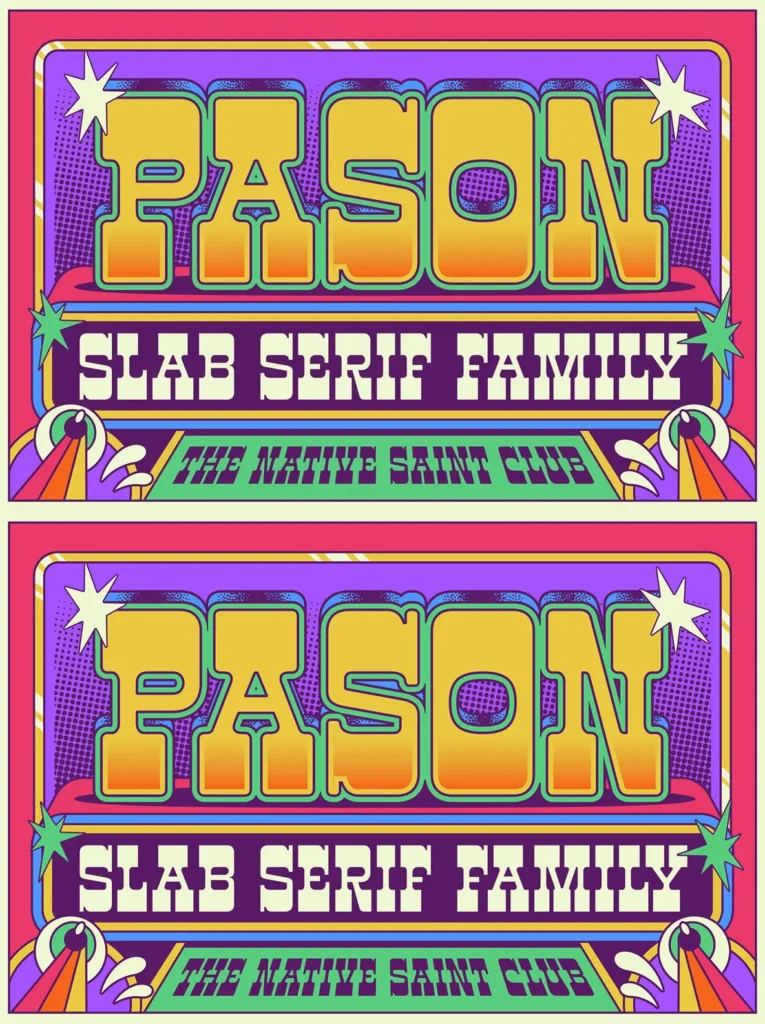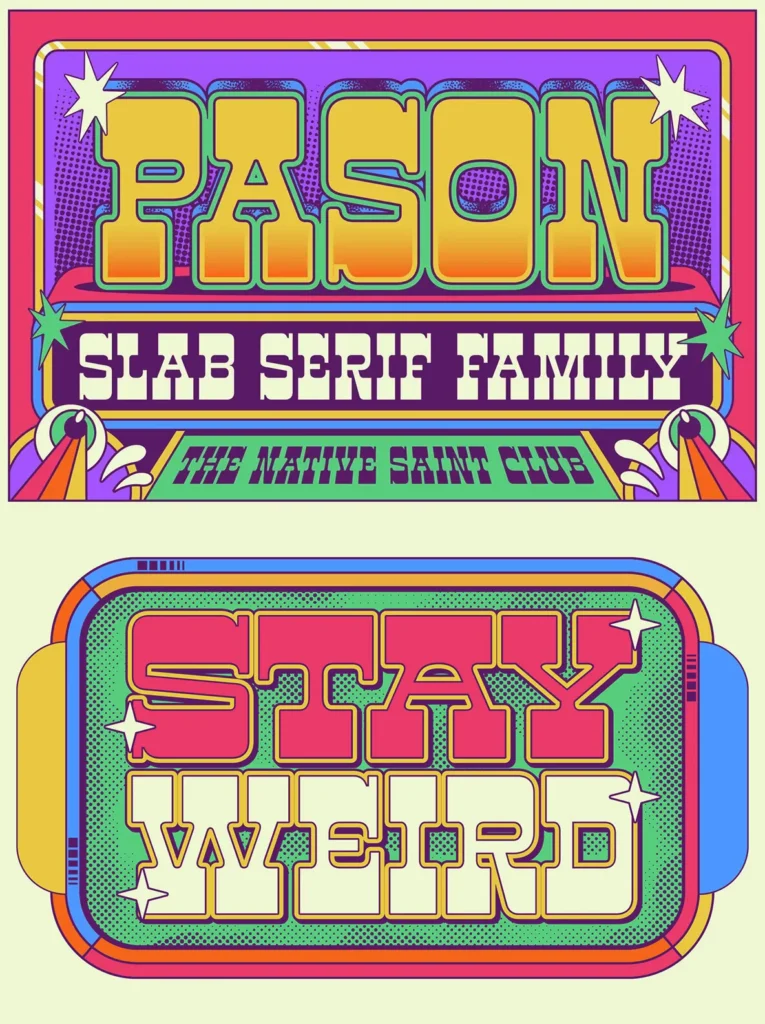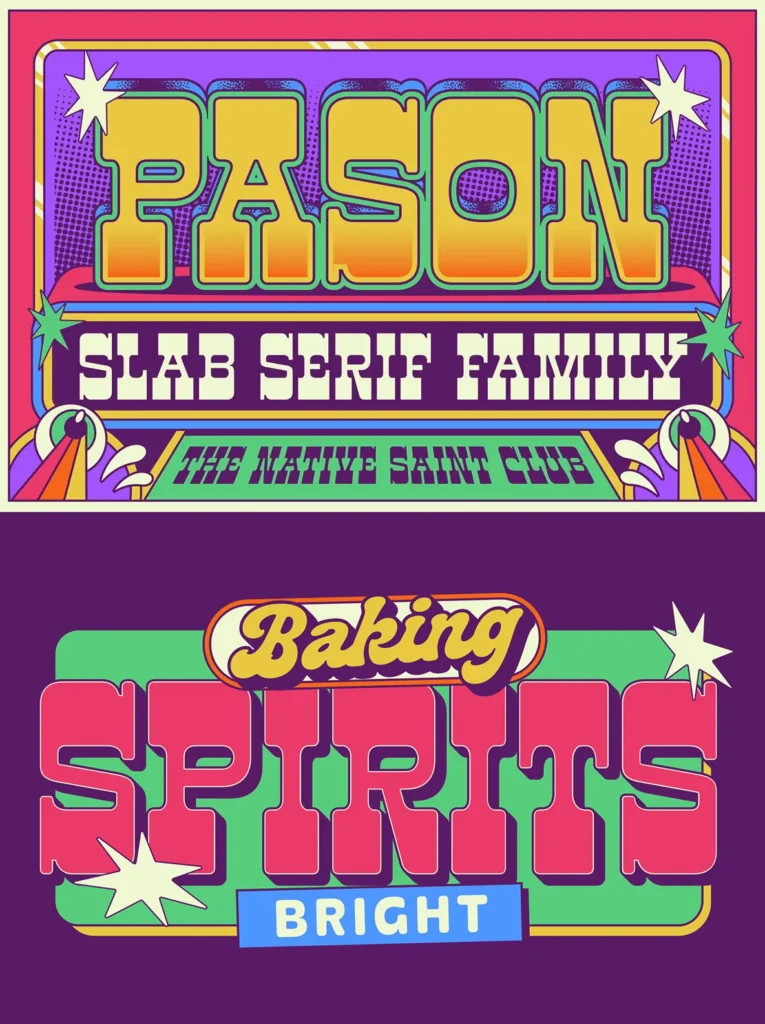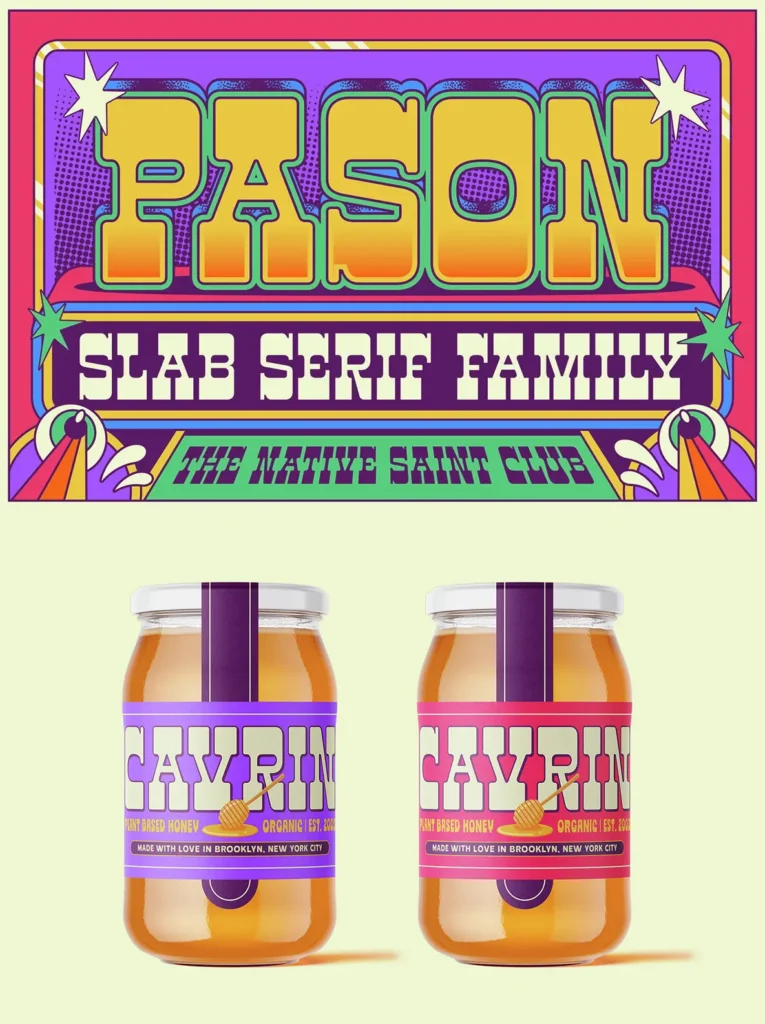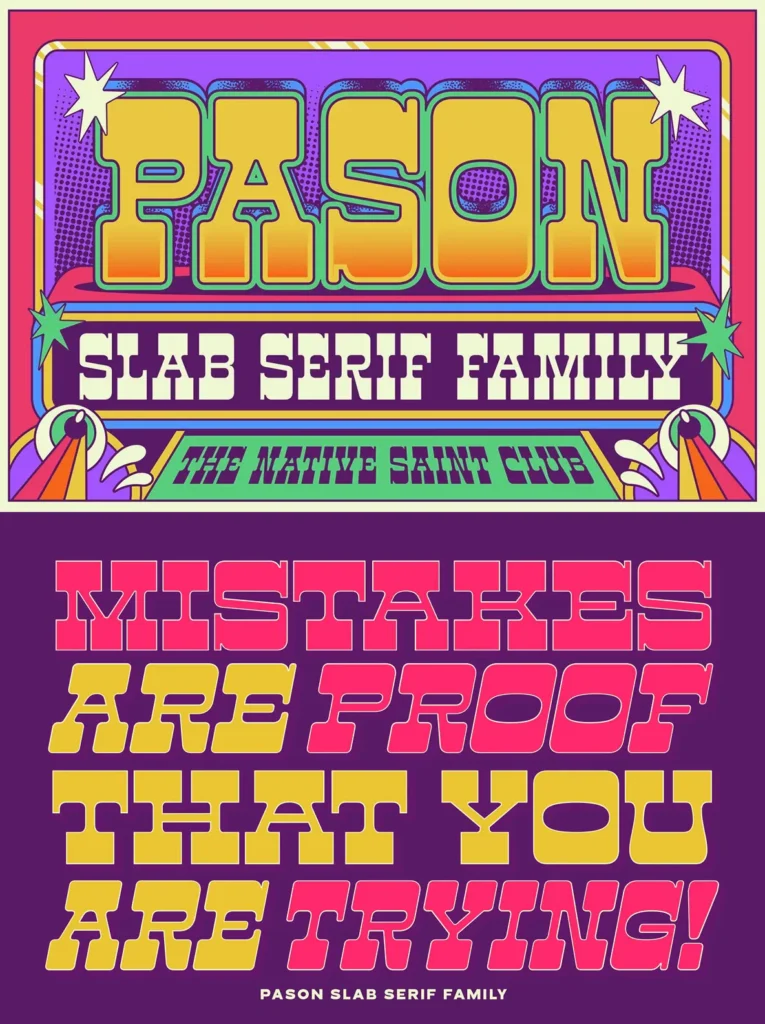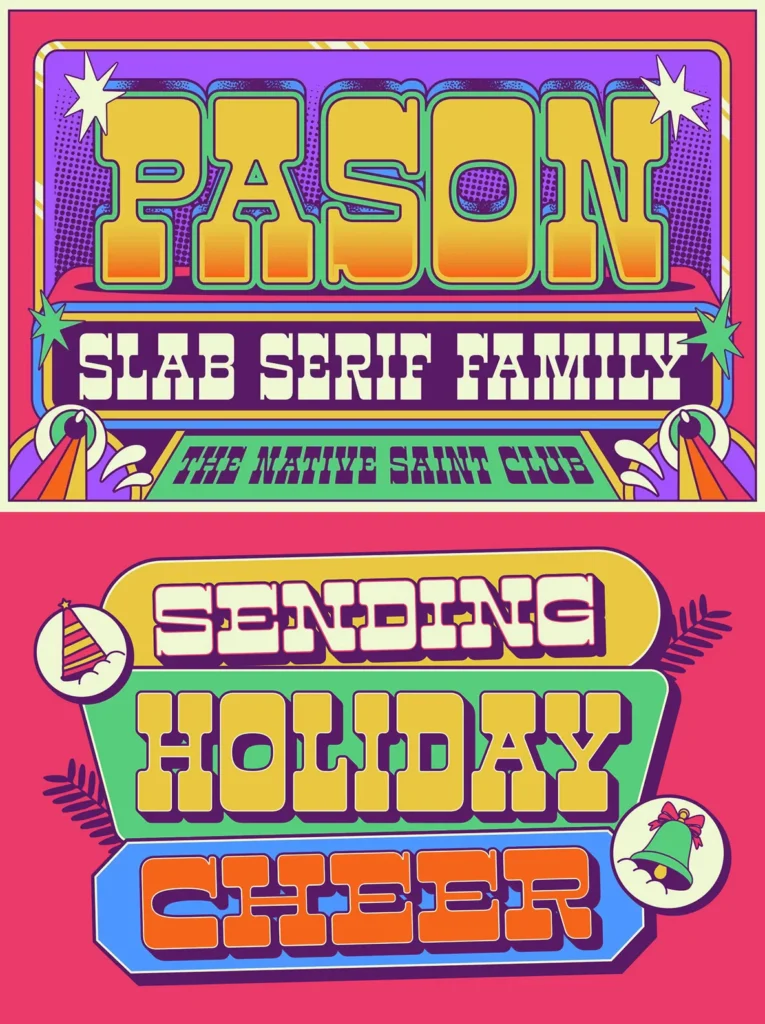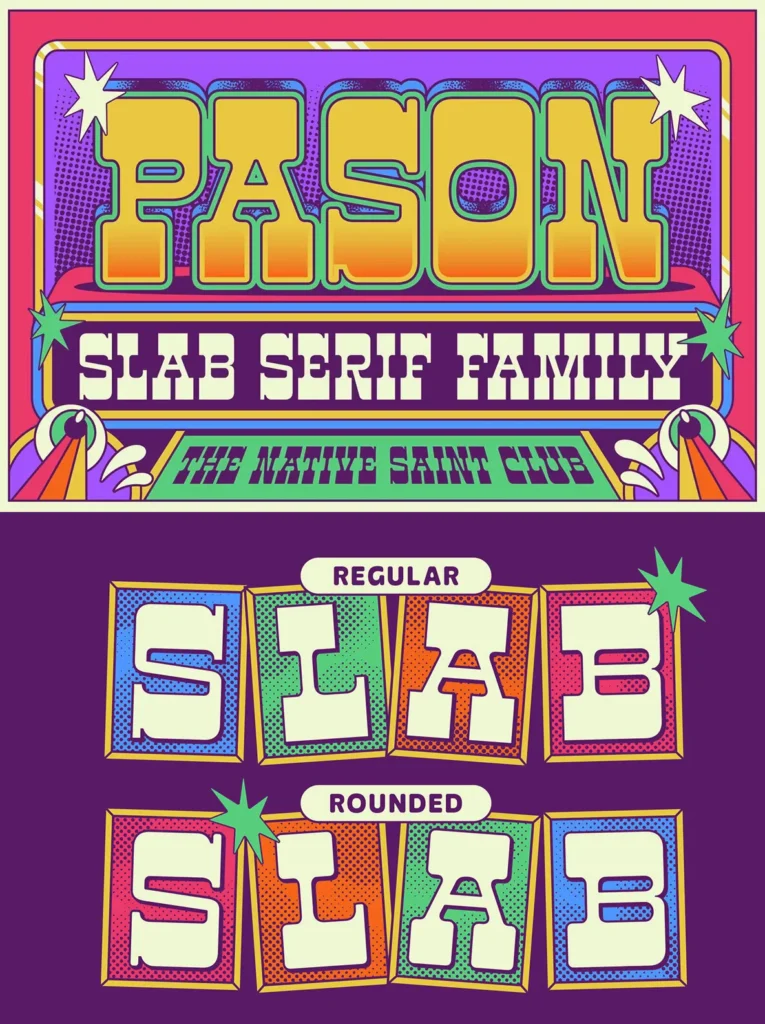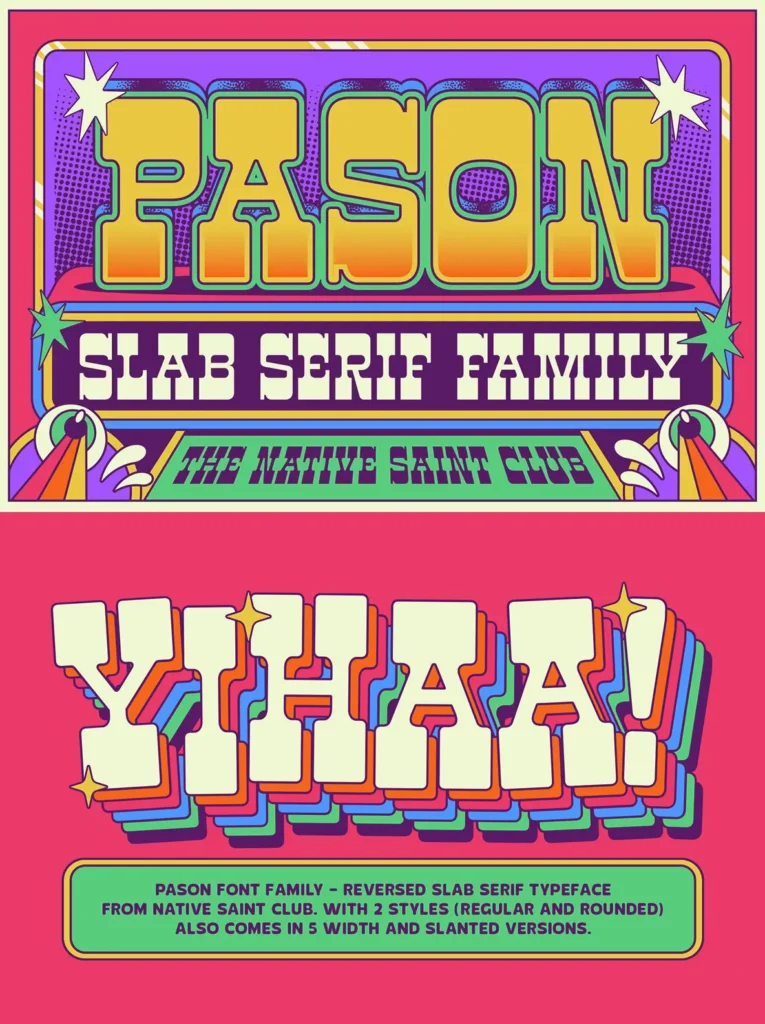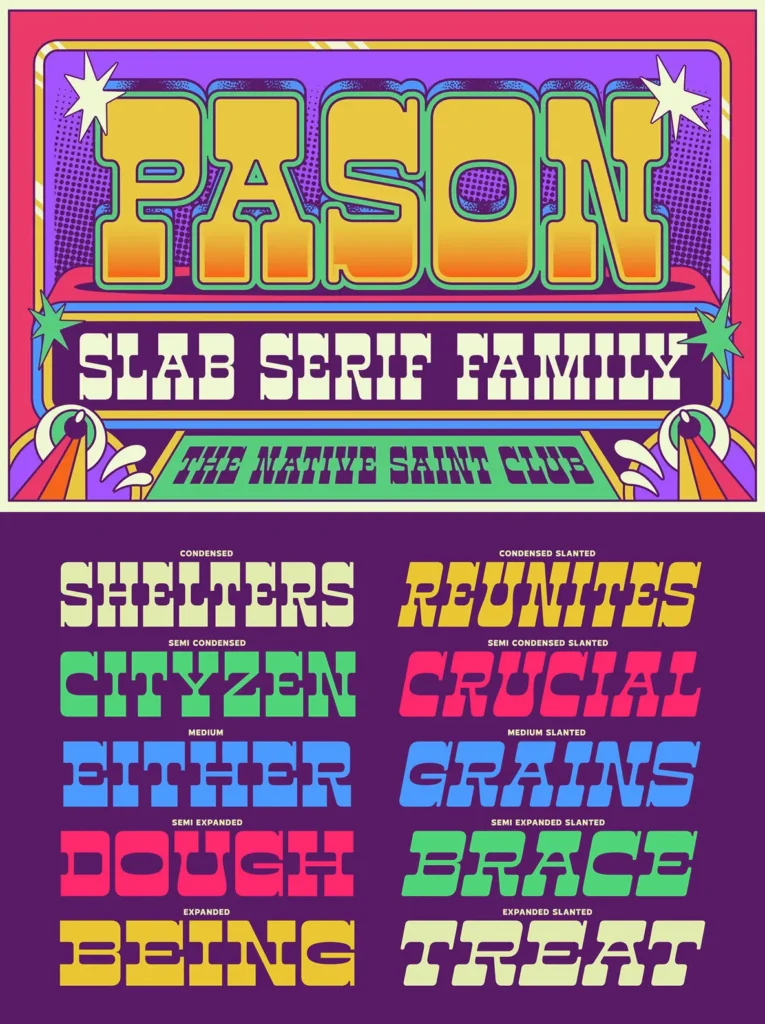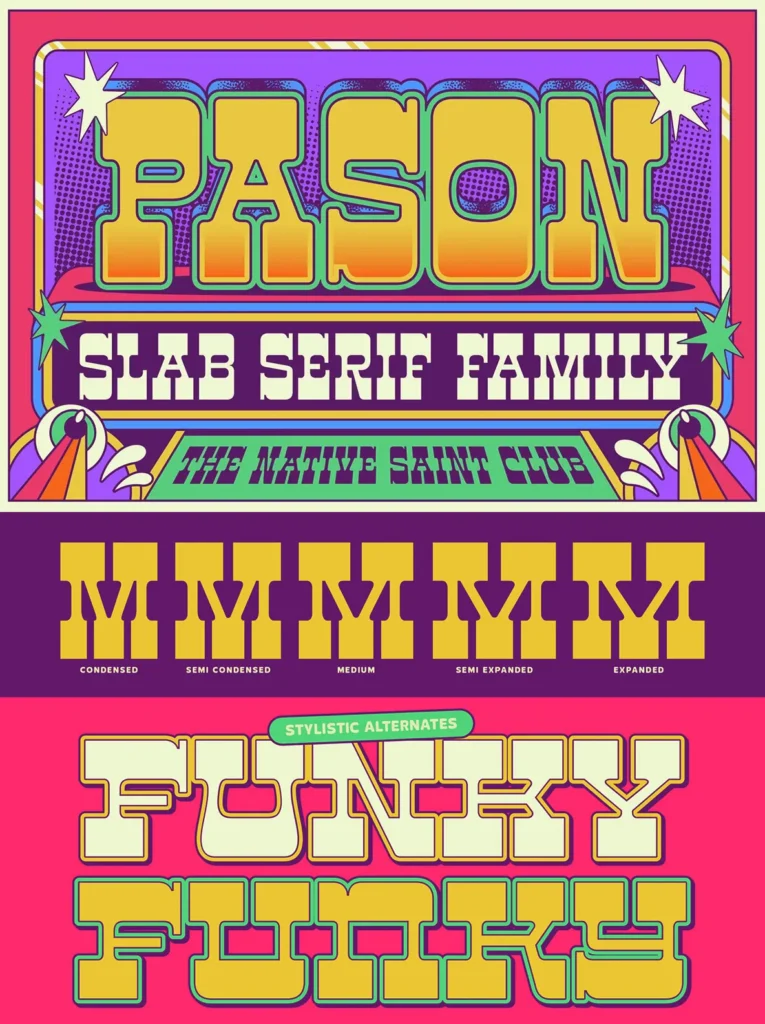
Pason is a versatile slab serif font that combines vintage charm with a pop modern aesthetic. It offers two distinct styles: Regular and Rounded, making it adaptable for a wide range of creative projects. The font is designed with five width variations—Condensed, Semi Condensed, Medium, Semi Expanded, and Expanded—providing flexibility for design needs across various applications.
Pason comes with a Variable Font feature, allowing seamless adjustments to width and slant within a single file, enhancing its usability in dynamic design contexts. This font is ideal for branding, packaging, posters, and headlines, offering a comprehensive solution for designers seeking to infuse their work with a modern yet classic touch.